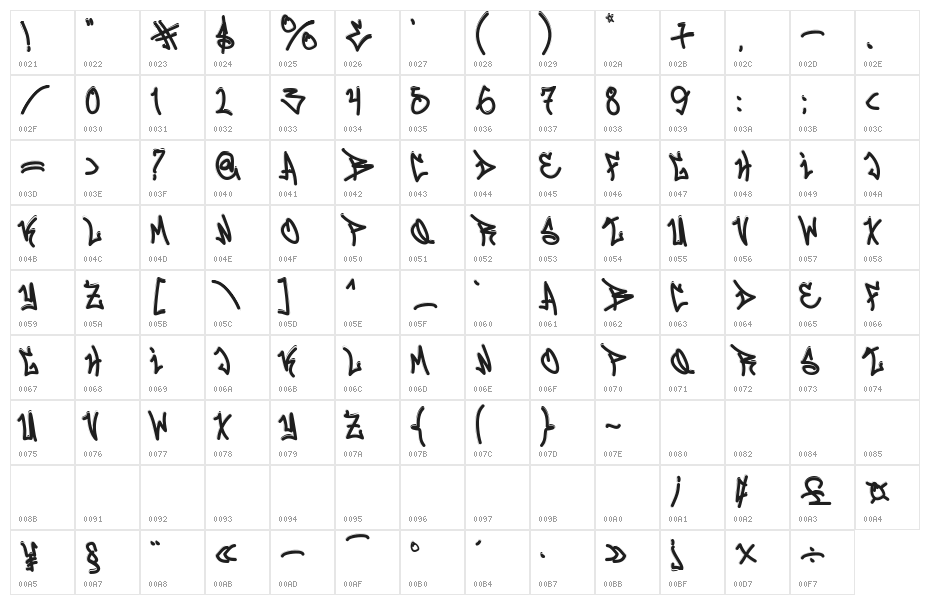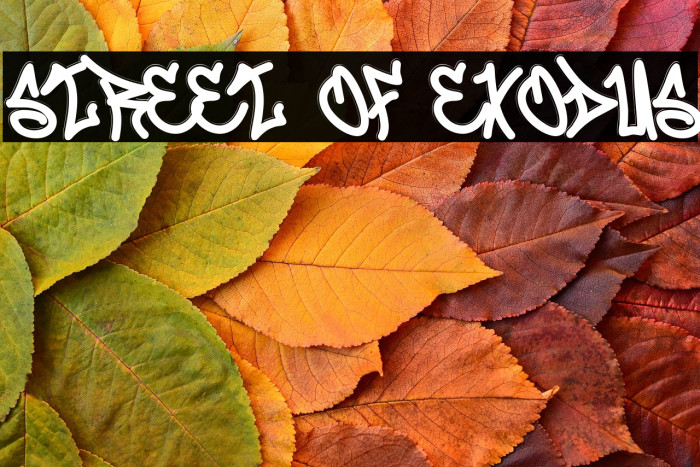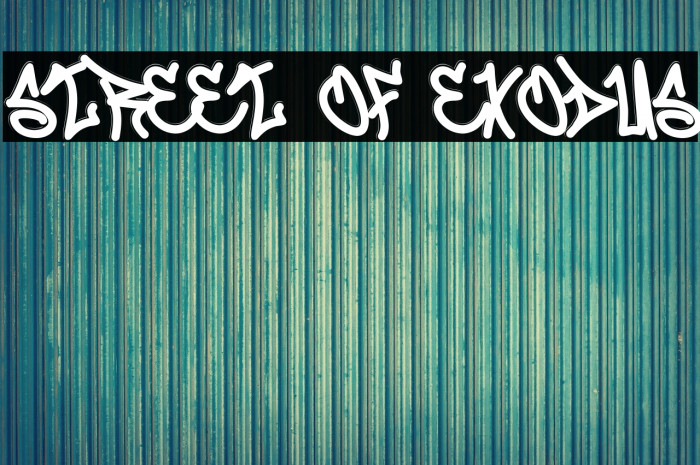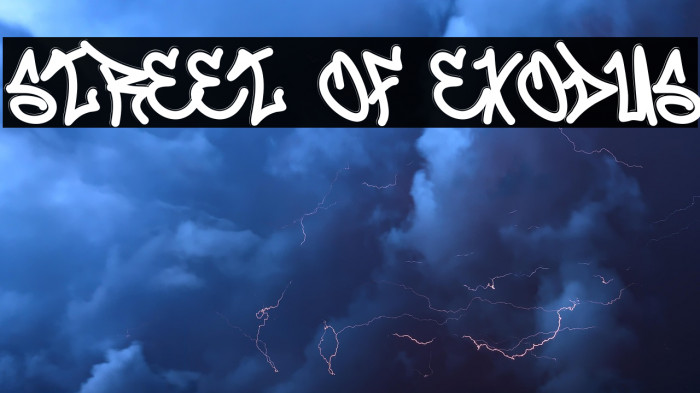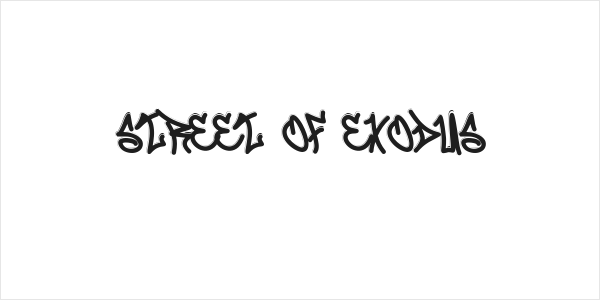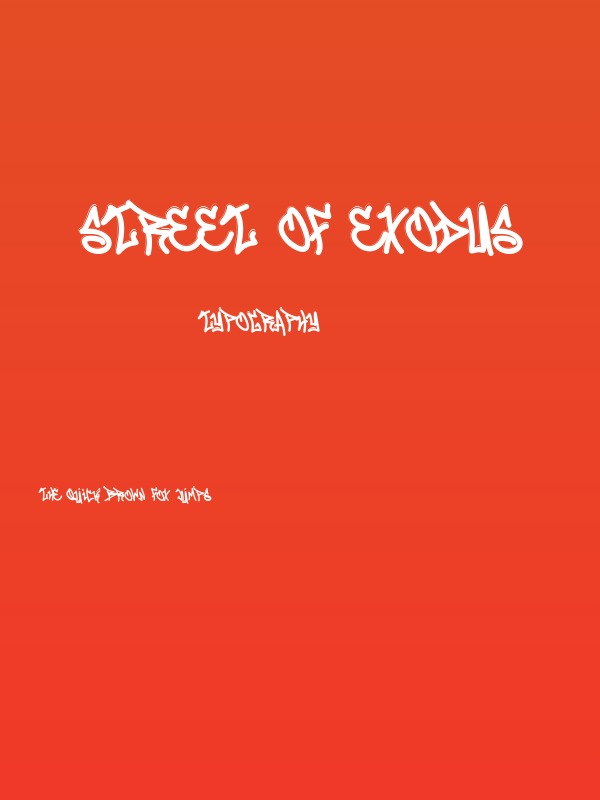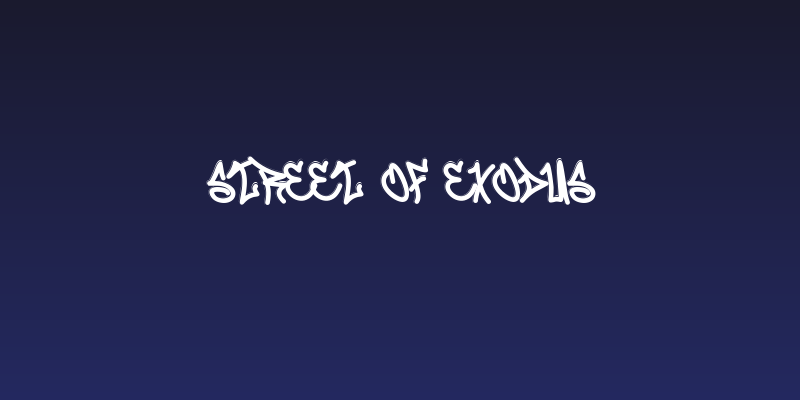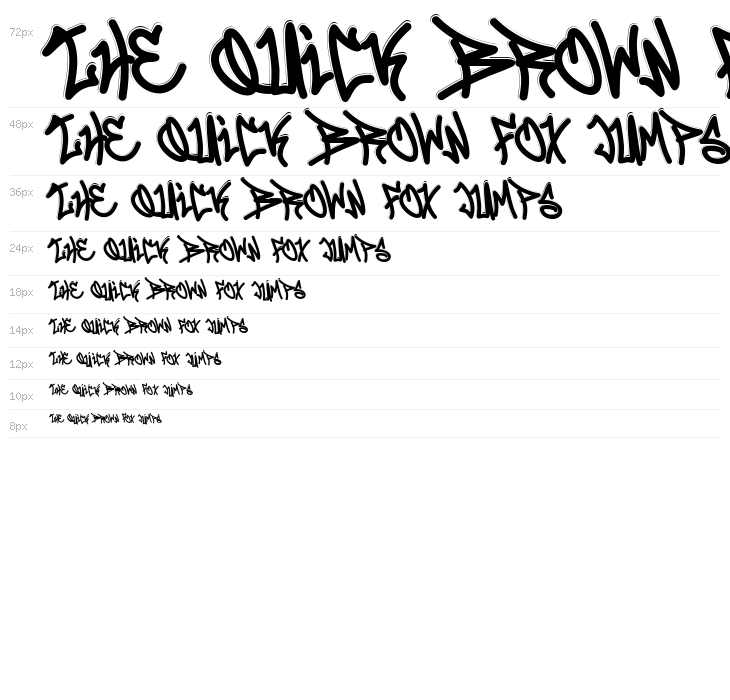
Street Of Exodus Font
Street Of Exodus Description
This font exudes an urban, graffiti-inspired style with its bold, dynamic strokes and energetic flair. The characters are highly stylized, featuring sharp angles and exaggerated curves that mimic the spontaneous nature of street art. The uppercase and lowercase letters maintain a consistent aesthetic, while the numerals and special characters integrate seamlessly with the overall design. This font captures the essence of rebellious creativity, making it ideal for projects that aim to convey a sense of edginess and modernity.
| Overall Style | Modern, Urban, Edgy |
| Use Case | Logos, Posters, Album Covers |
| Proposed Projects | Ideal for street art projects, urban-themed posters, music album covers, and edgy branding. |